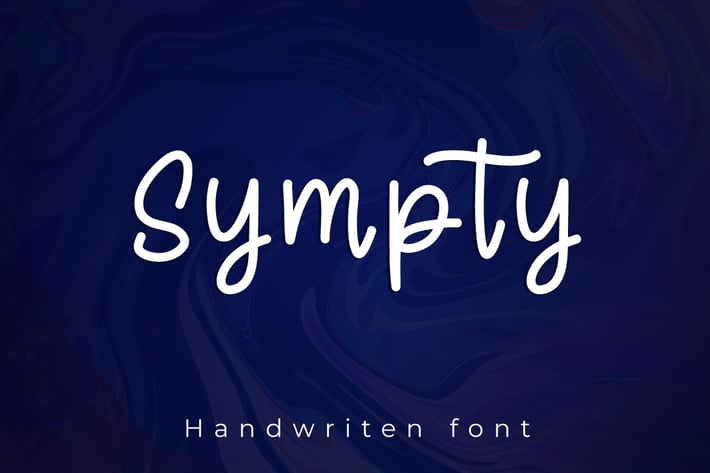
Sympty - Minimalist Handwritten Font
Hello! Sympty is a simple handwritten font.
Sympty can be used in any works such as flyer, book title, advertisement, social media content, logo and many more.